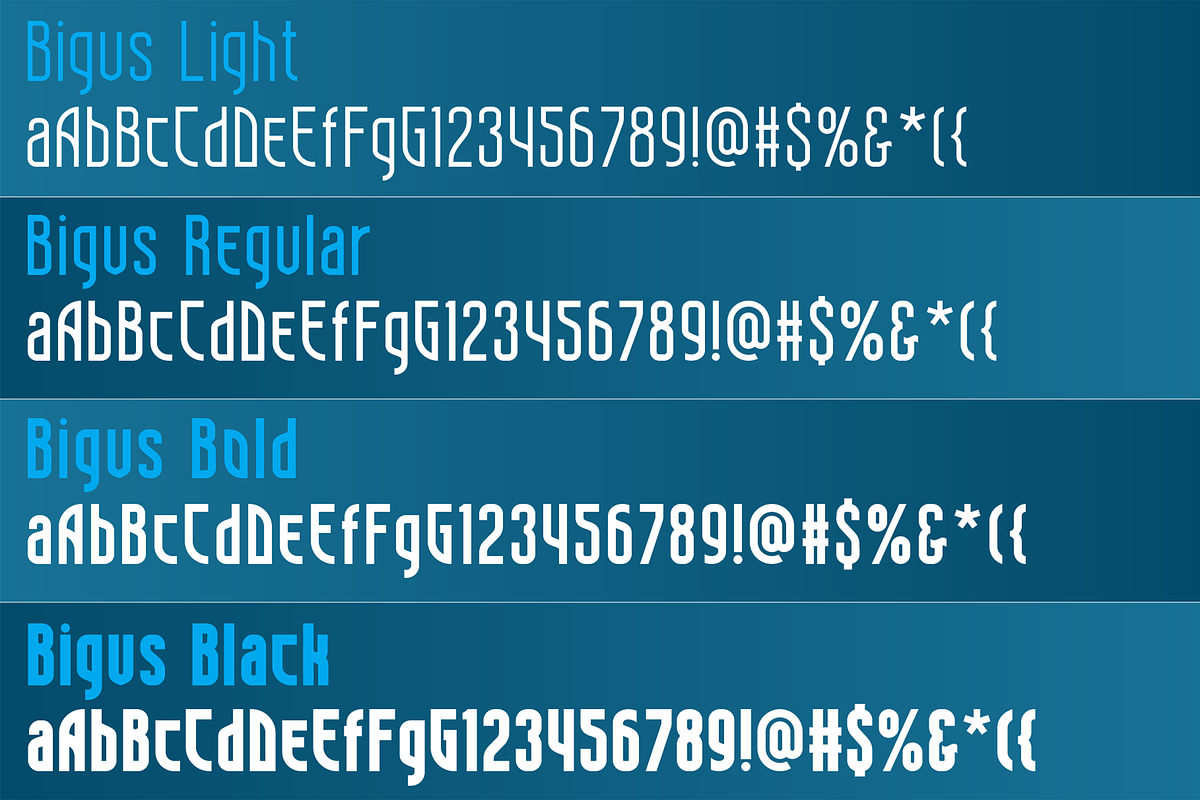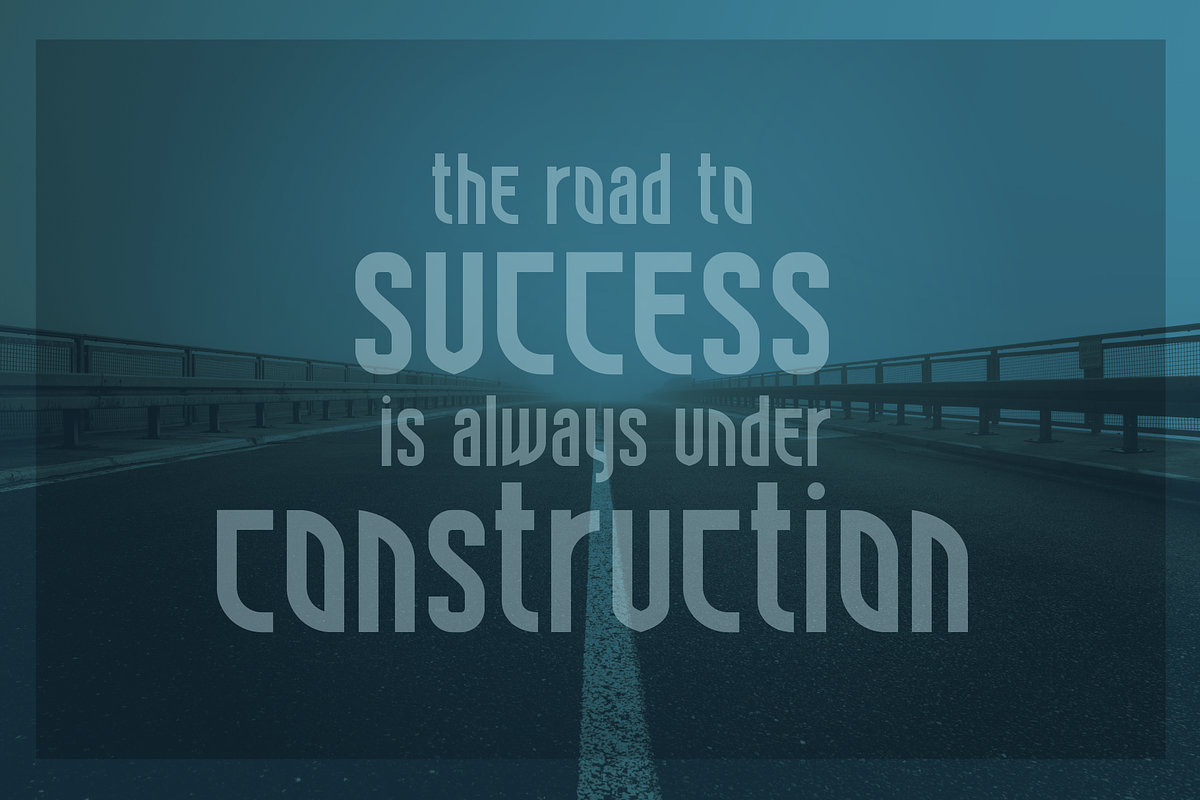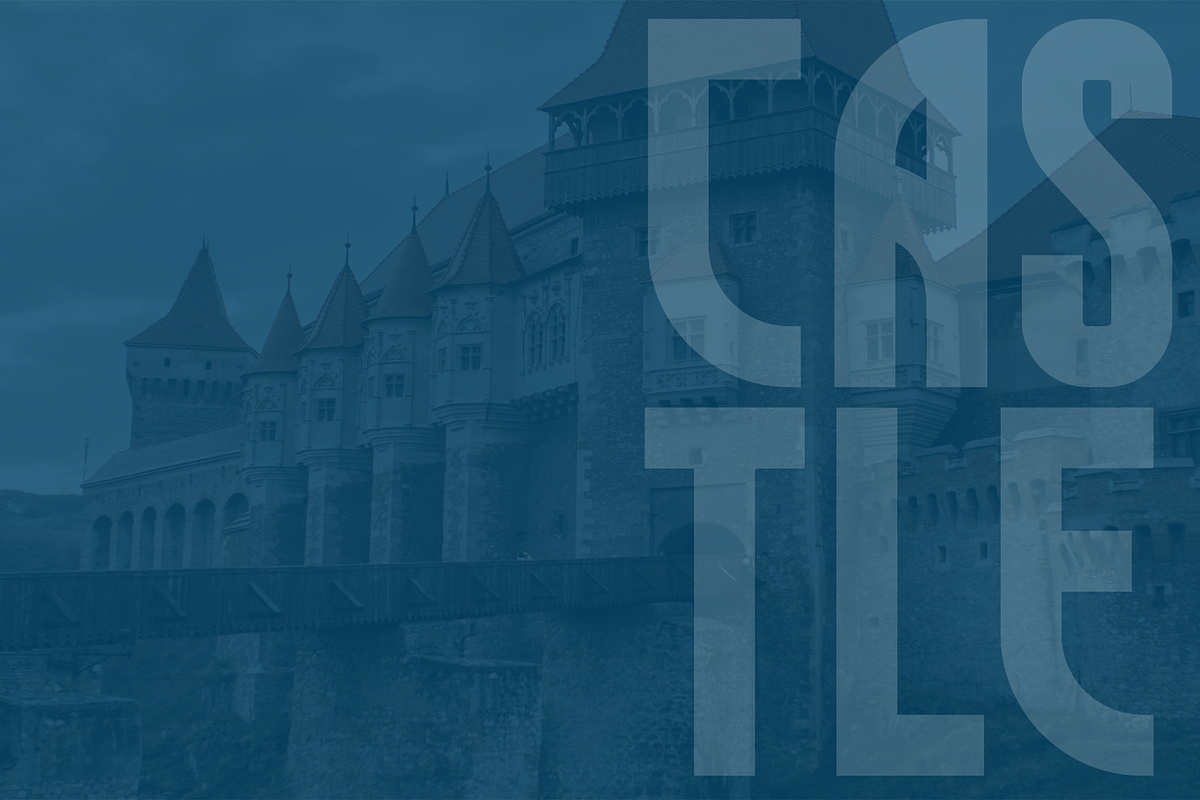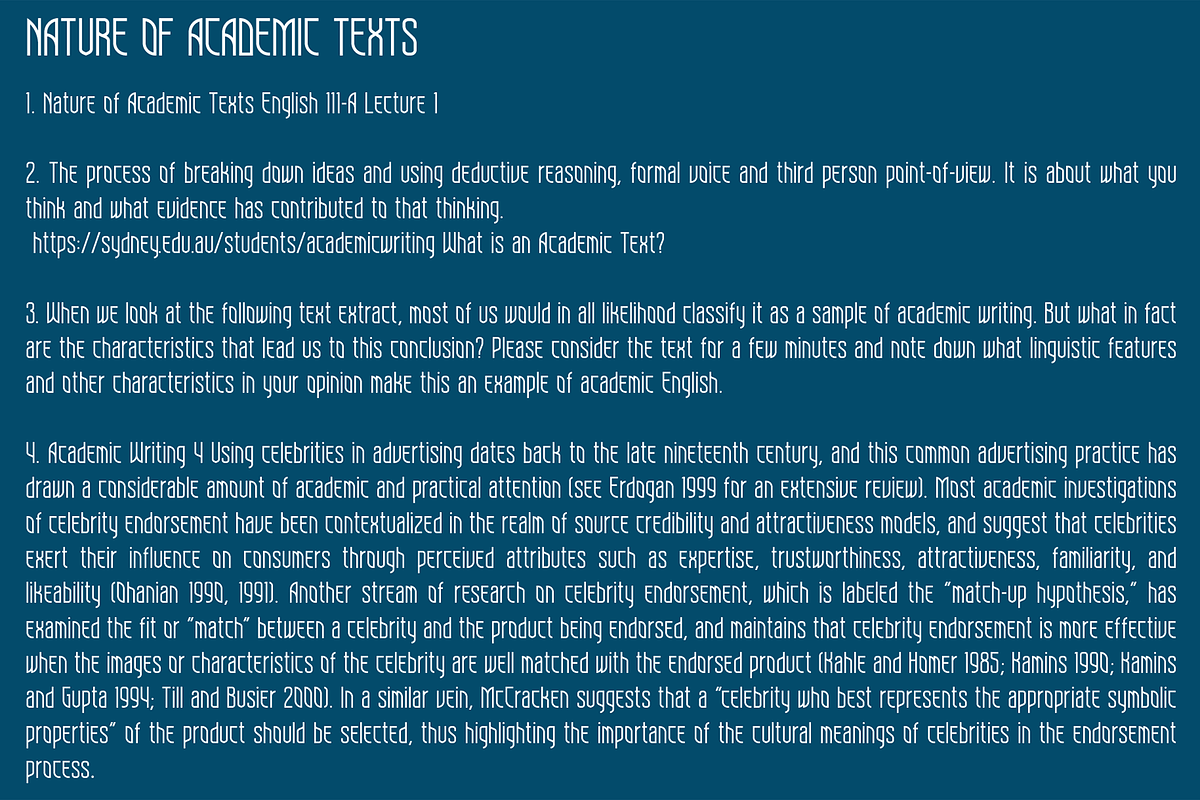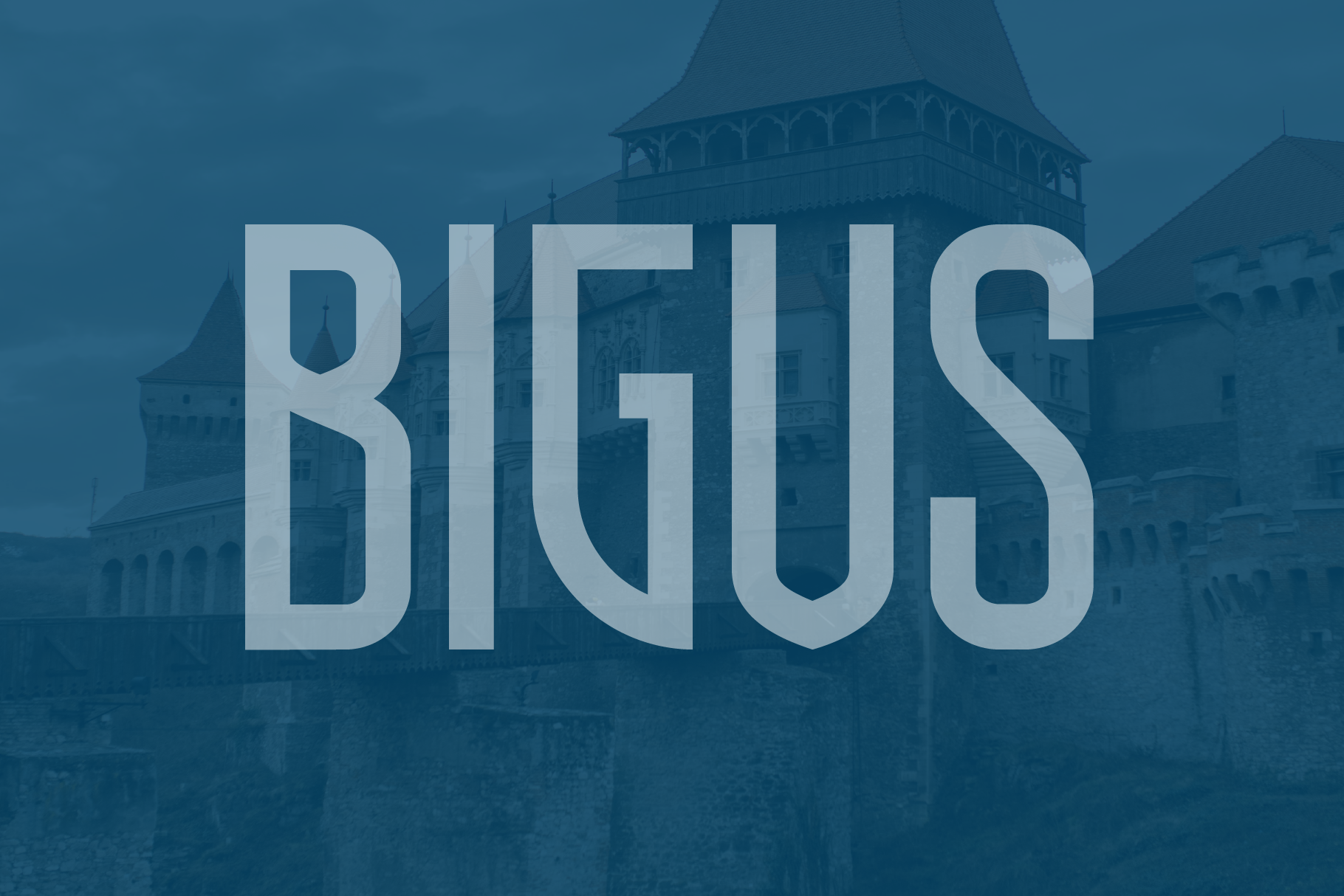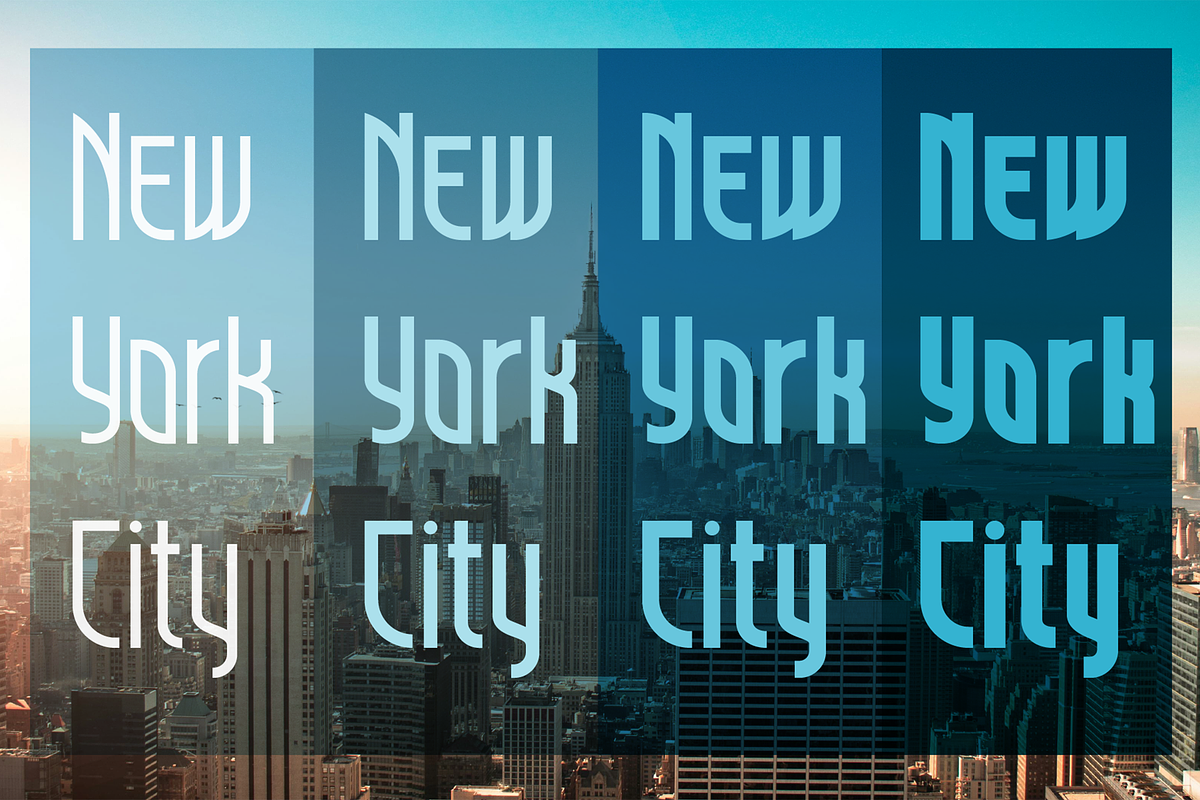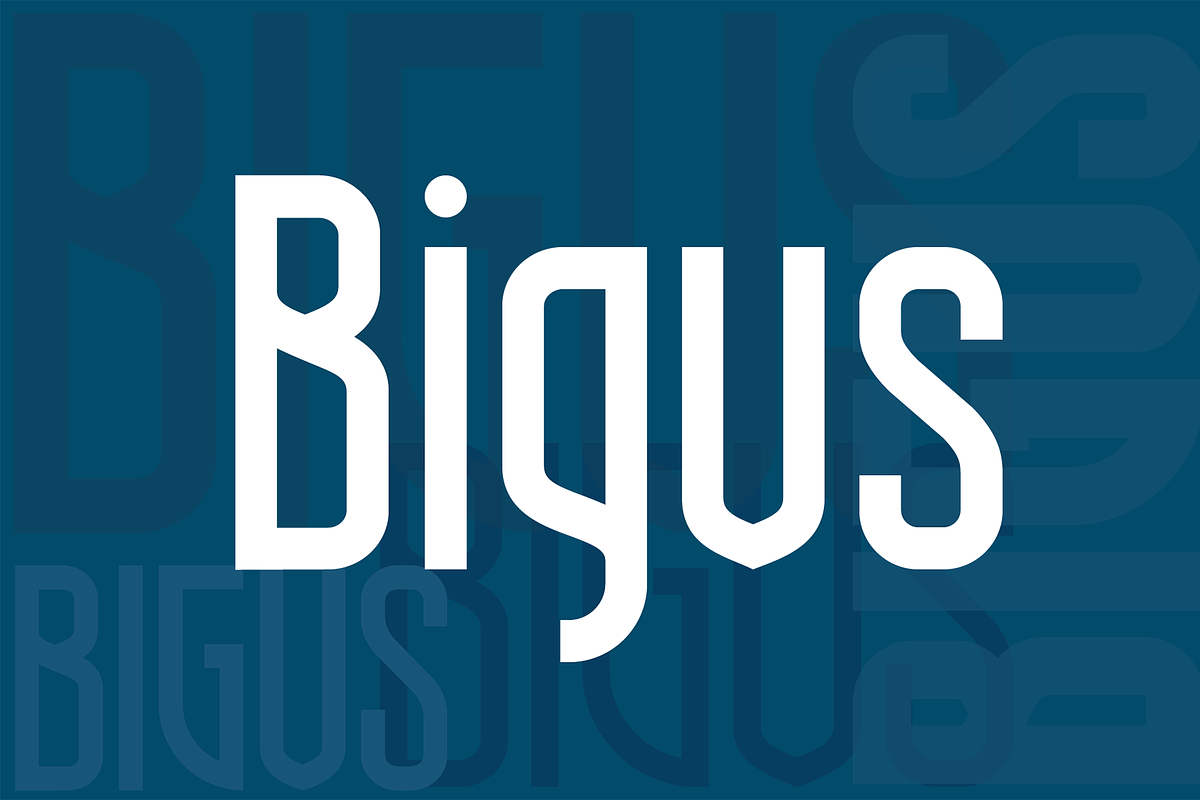
Bigus font family
Bigus is a modern narrow sans serif geometric font, includes upper and lower case characters, Latin, Cyrillic, Latin Eastern Europe, Turkish, Baltic and other.
The bigus family have the 4 types of thickness.
Bigus fonts will be useful in developing a brand, creating posters and other graphic products, and for word processing.